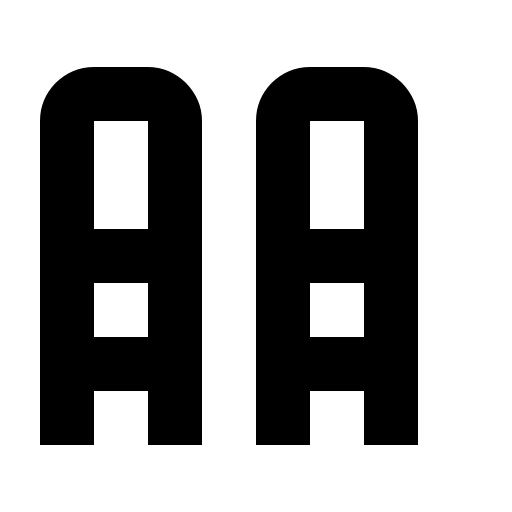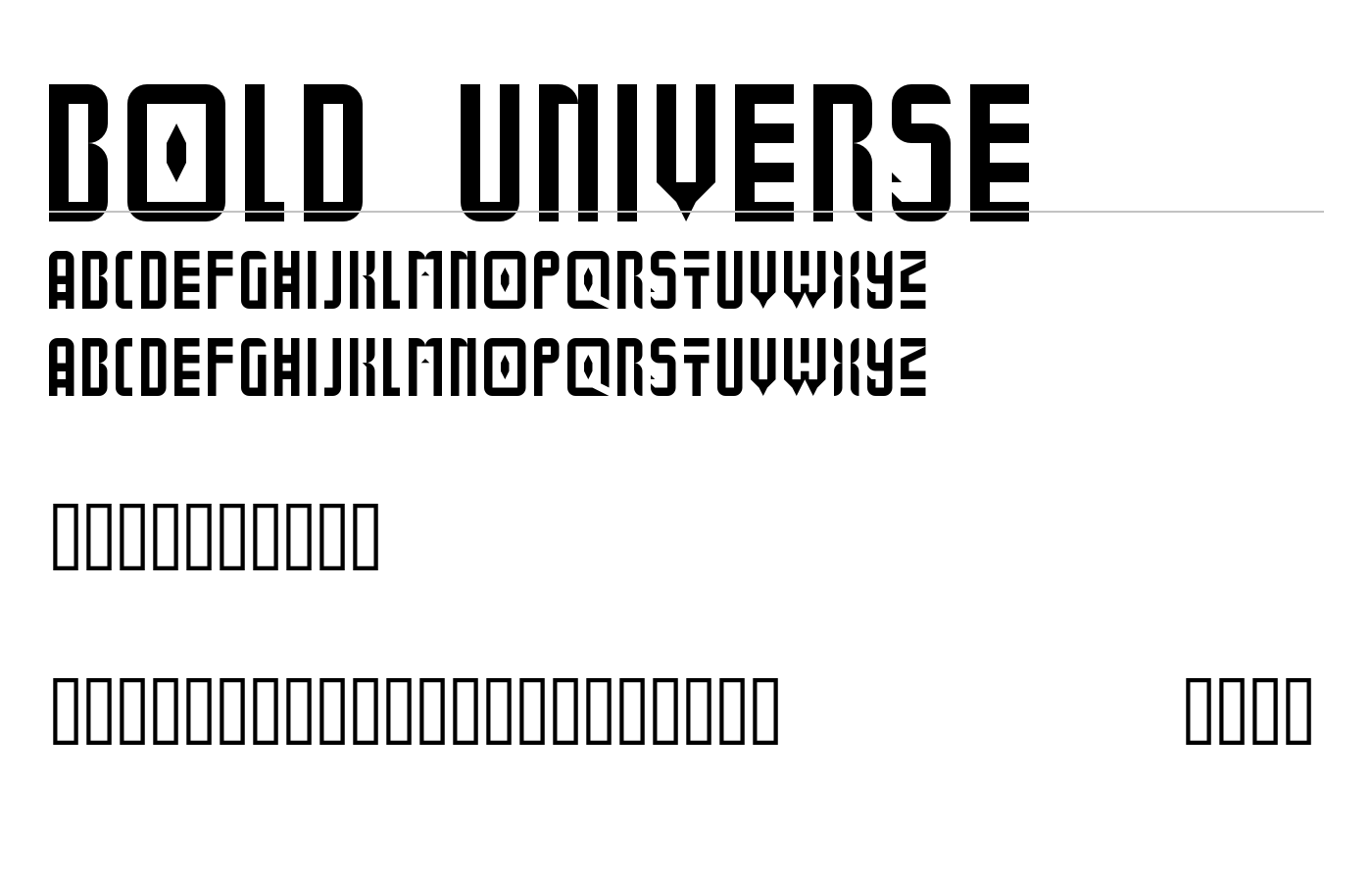
Bold Universe is a striking sans serif font characterized by its bold weight, condensed width, and geometric structure. Its sharp edges and unique ornamental details give it a futuristic, sci-fi vibe, making it perfect for eye-catching headlines, logos, and branding that aims to convey modernity and strength. This font works well in settings where a bold, distinctive, and slightly technical look is desired.
Bold Universe Font